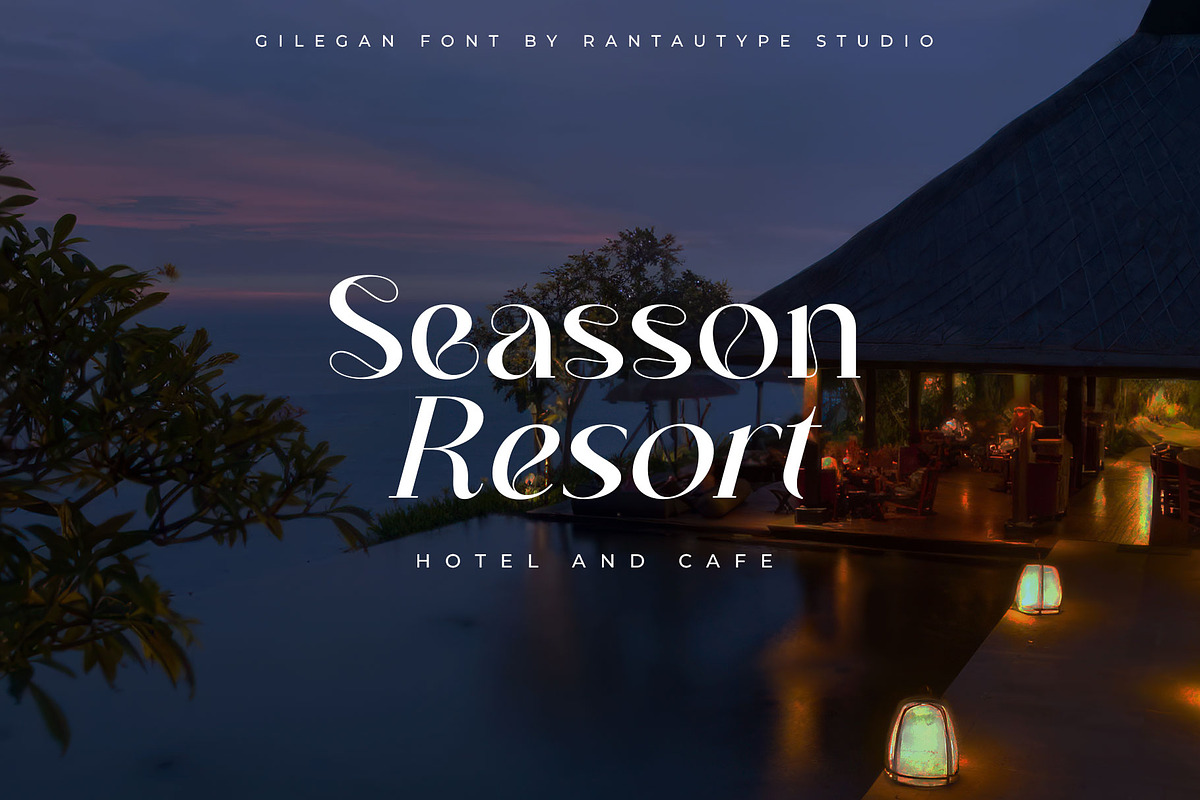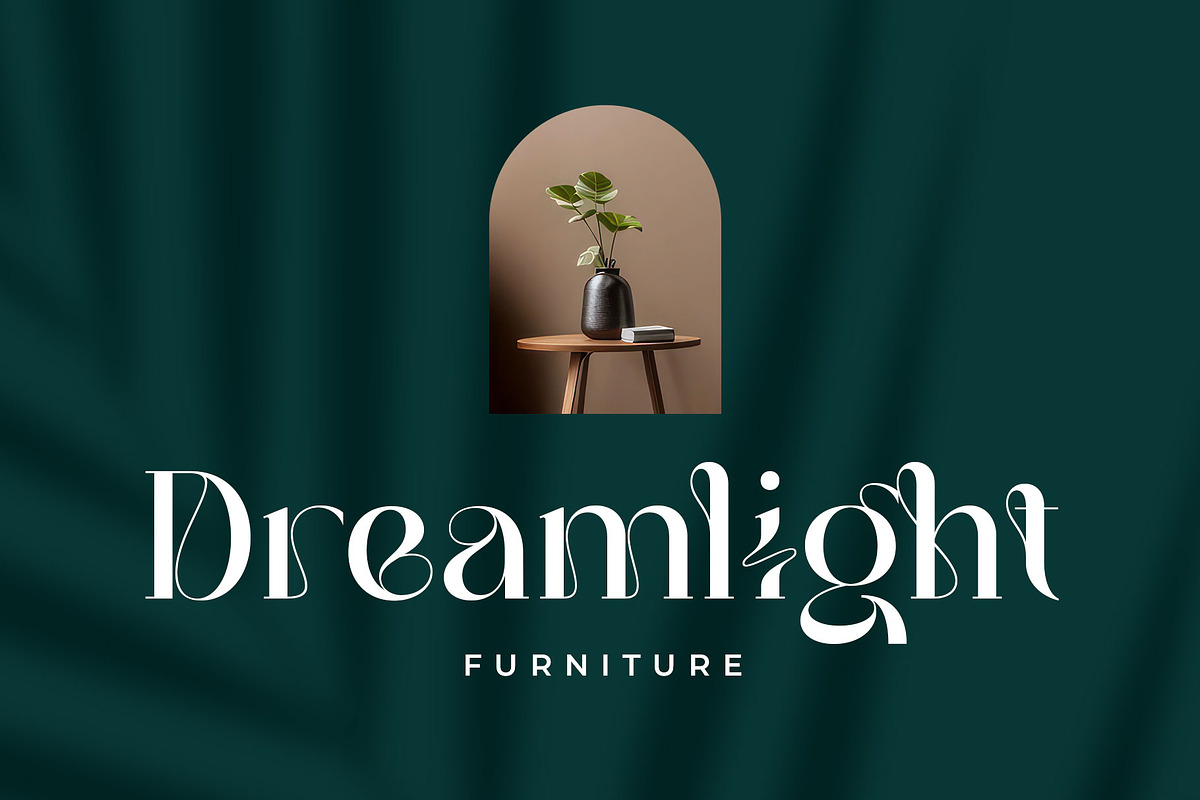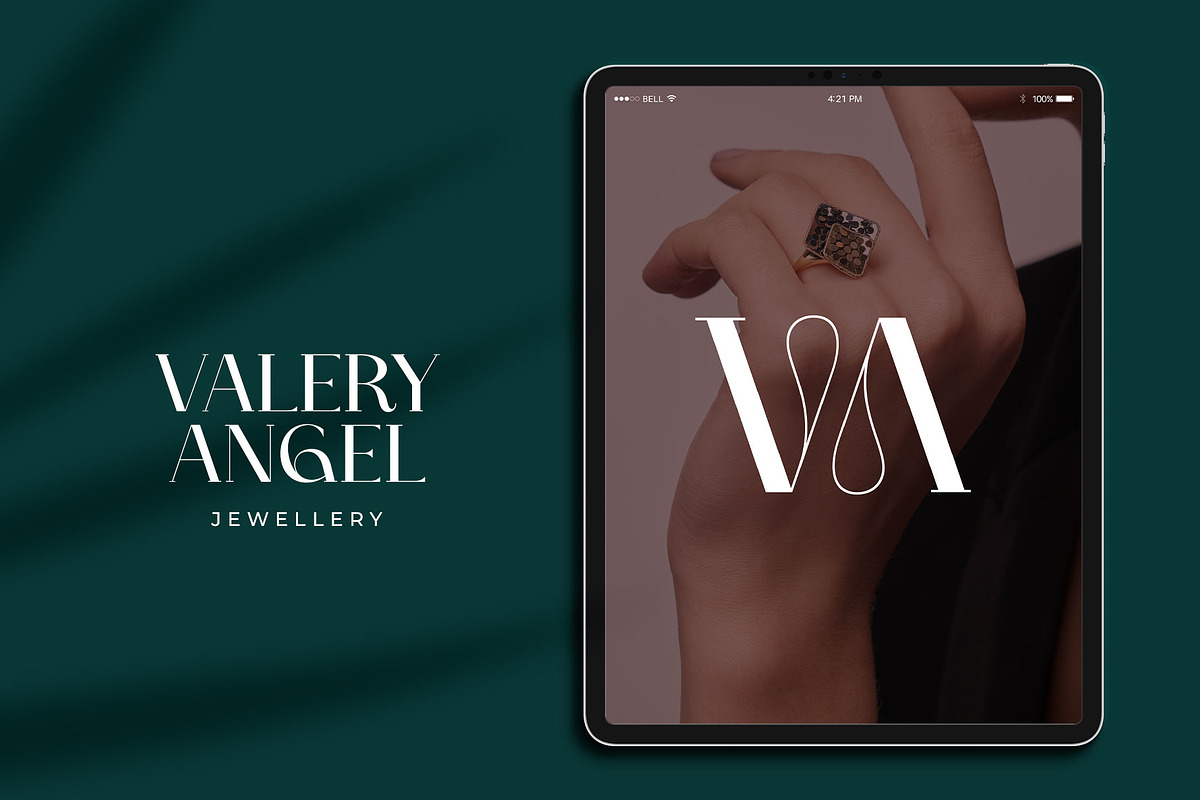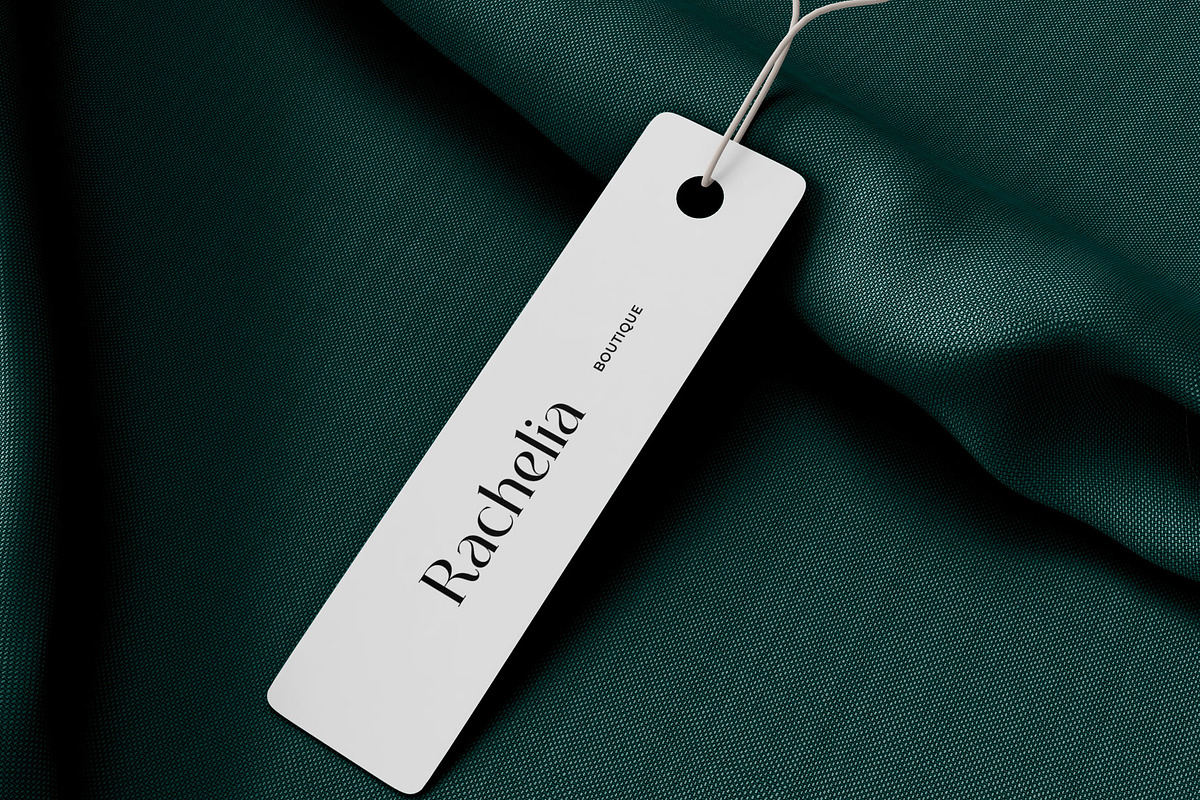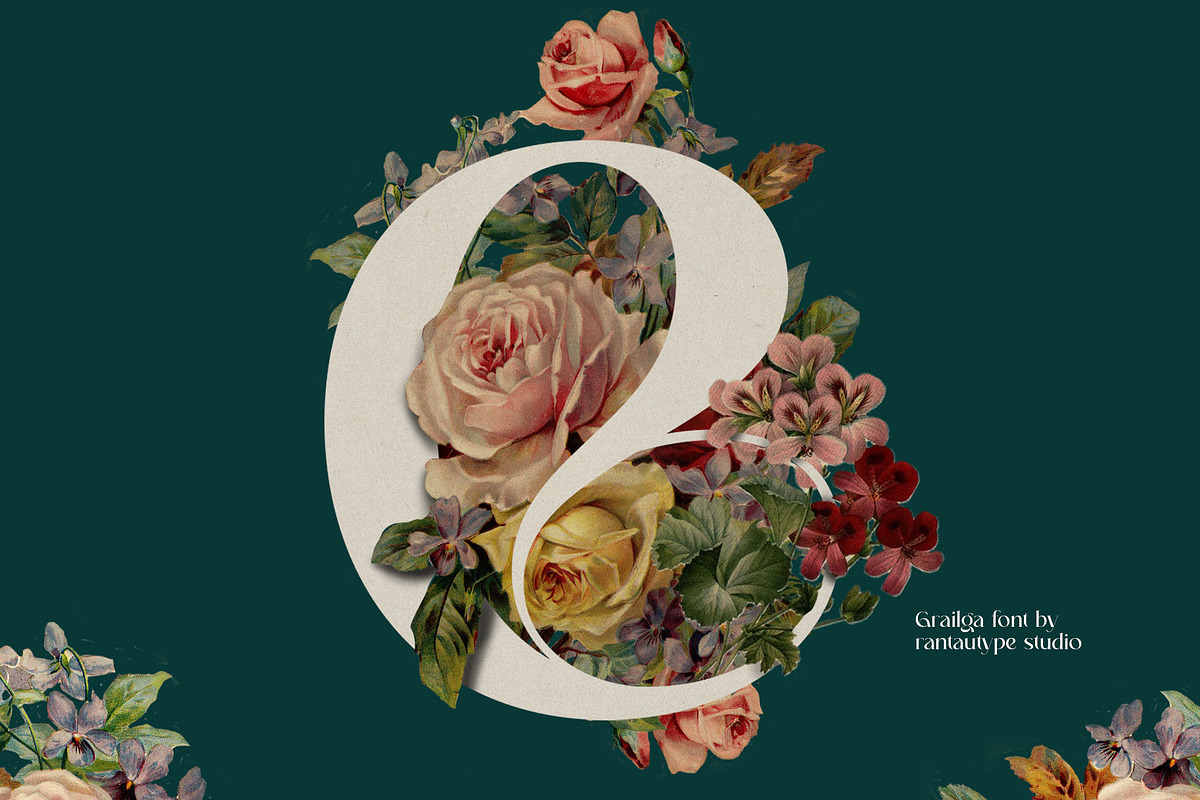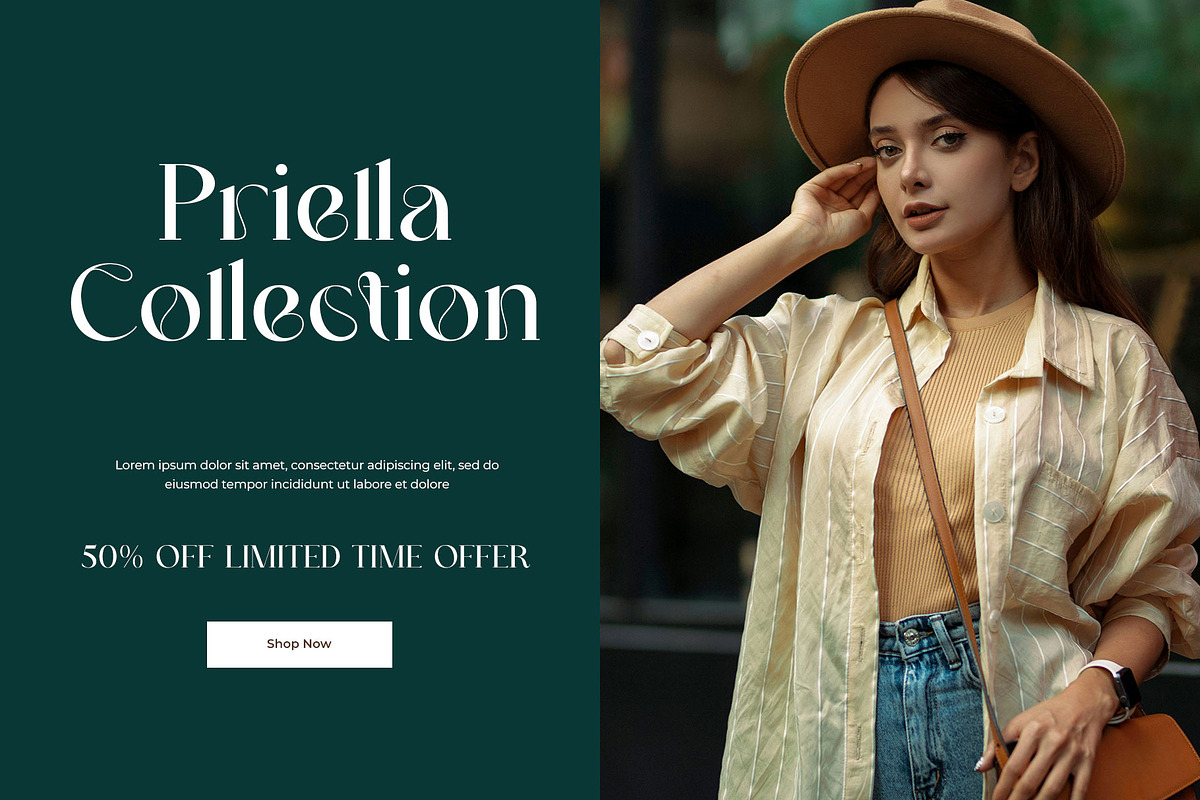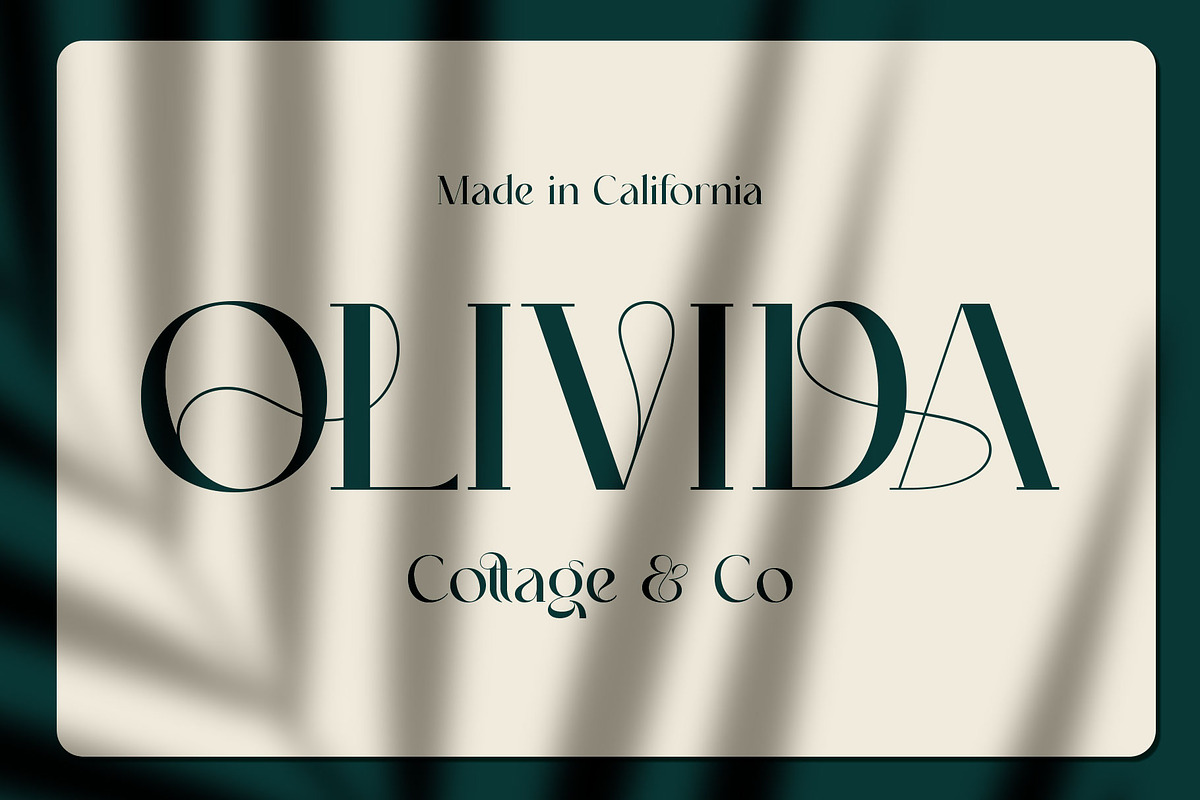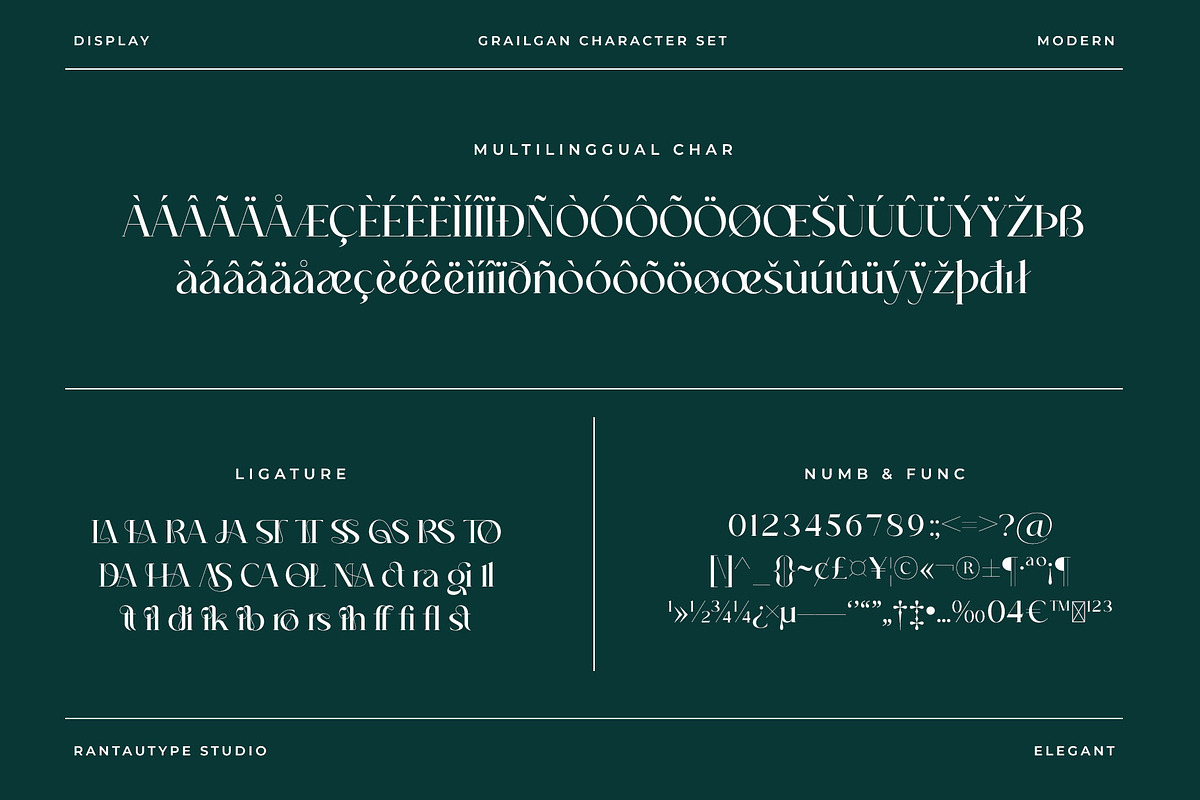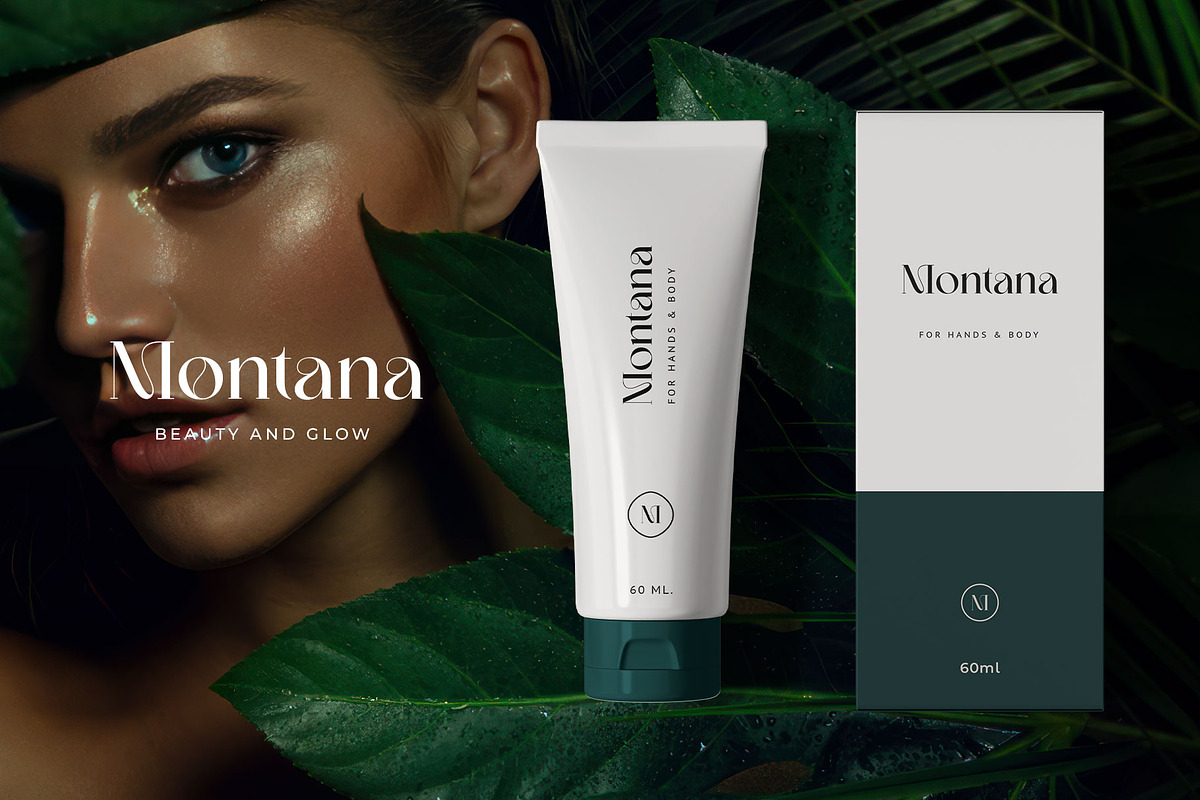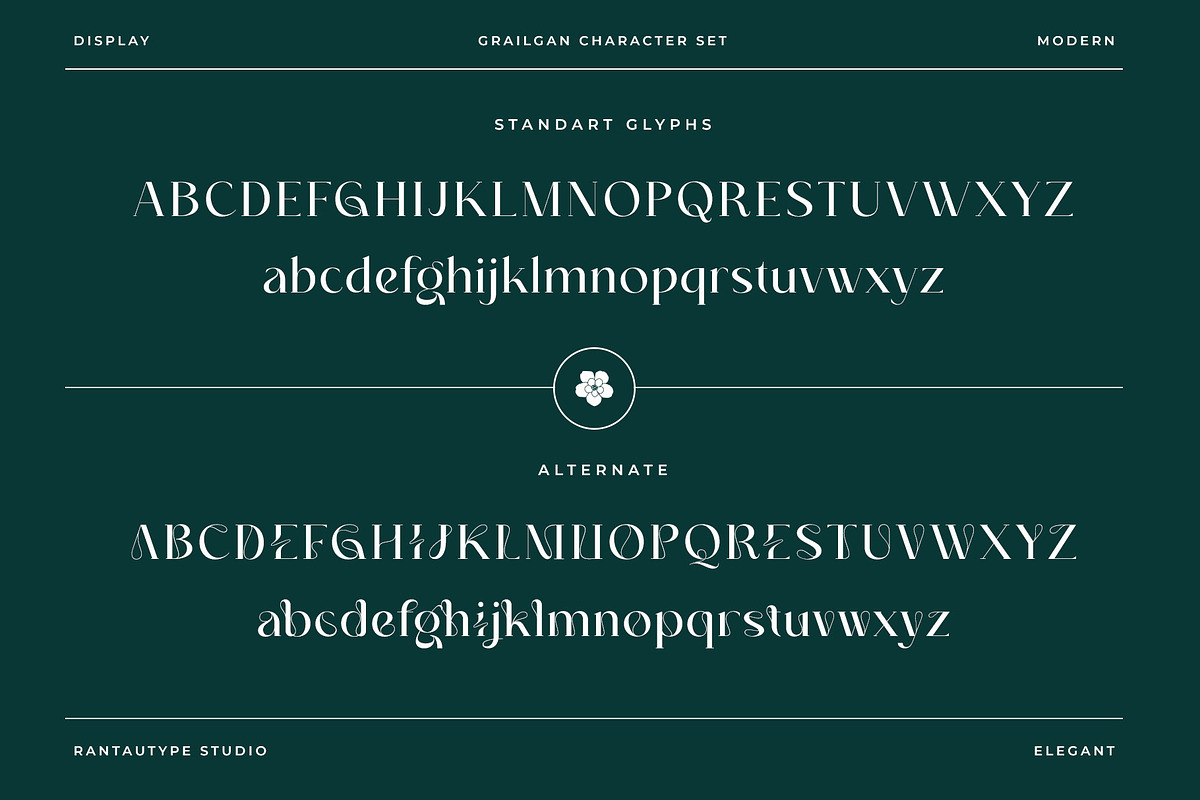
Grailga Modern Serif Font
Grailga is modern serif typeface with elegant flow curve. Naturally and elegant is two word that are suitable for this typeface. We love how each character flow to connect with other shape very beautiful and unique with its versatility and contemporary appeal.
Grailga is a perfectly choice for any creative endeavor, chic, lifestyle design such as logos, advertisements, watermark on photography, stationery, branding project, display and magazine, invitation, corporate brand, product design, label, business project and many other project with elegant touch.
- Alternate and Ligature